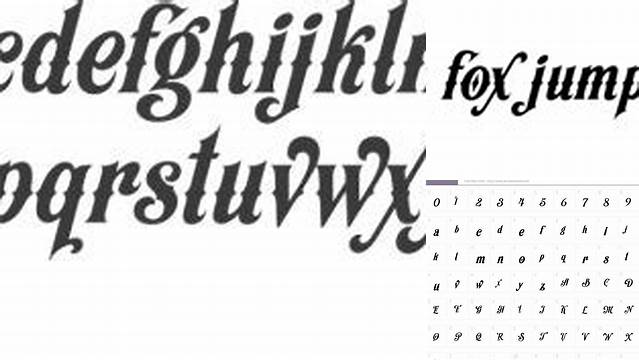
Free Appleton Regular Font Download: A Comprehensive Guide
What is Appleton Regular Font?
Let's kick things off by understanding what exactly Appleton Regular is. This font is known for its clean lines and readability, making it a favorite for a wide range of applications. Whether you're designing a website, creating marketing materials, or even working on a personal project, the Appleton Regular font can add a touch of elegance and professionalism. Its versatility stems from its balanced design, making it suitable for both headlines and body text. You know, that sweet spot where it looks good no matter what? That's Appleton Regular for ya!
Why Choose Appleton Regular Font?
So, why should you even bother with Appleton Regular? Well, there are tons of reasons! For starters, its classic look ensures your designs won't feel dated anytime soon. Plus, the excellent readability means your message will always come across clearly. Think of it as the little black dress of fonts – always in style and appropriate for almost any occasion. Using Appleton Regular helps in creating a professional and cohesive look across all your projects, which is super important for branding and visual communication. Seriously, this font is a game-changer!
Alternatives to Appleton Regular Font
Using Appleton Regular in Design Projects
Alright, you've got Appleton Regular installed and ready to go. Now what? Well, the possibilities are endless! This font is incredibly versatile, making it suitable for a wide range of design projects. Think websites, logos, brochures, presentations – you name it! Its clean and professional look makes it a great choice for corporate branding, while its readability ensures your message always shines through. Experiment with different font weights and sizes to create visual hierarchy and add interest to your designs. With Appleton Regular, you've got a powerful tool in your design arsenal.